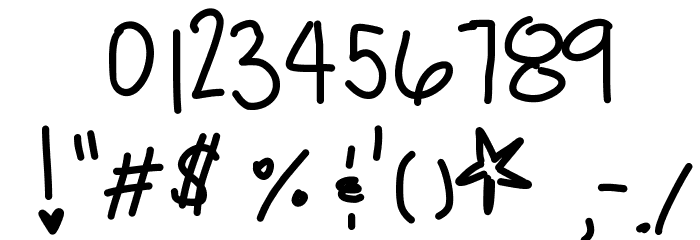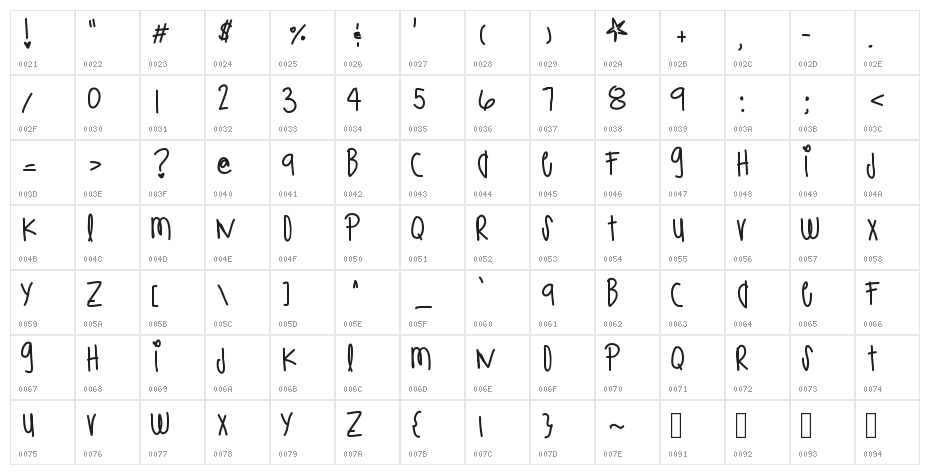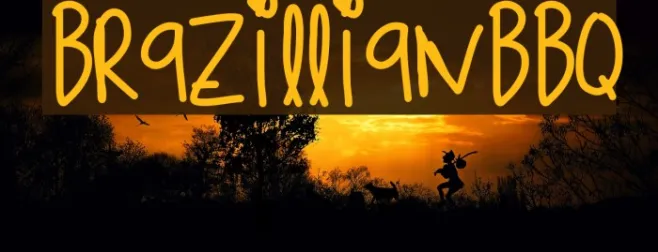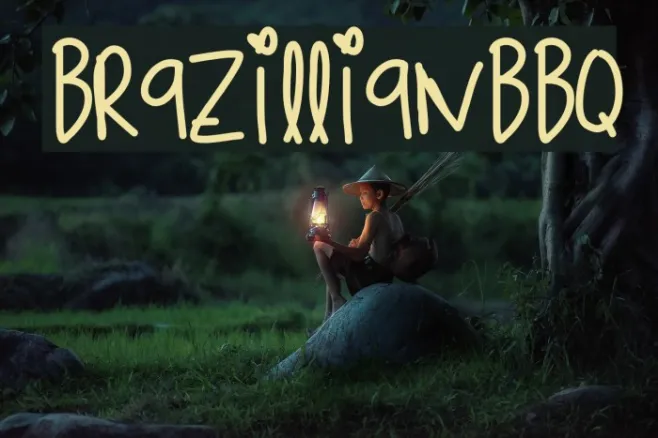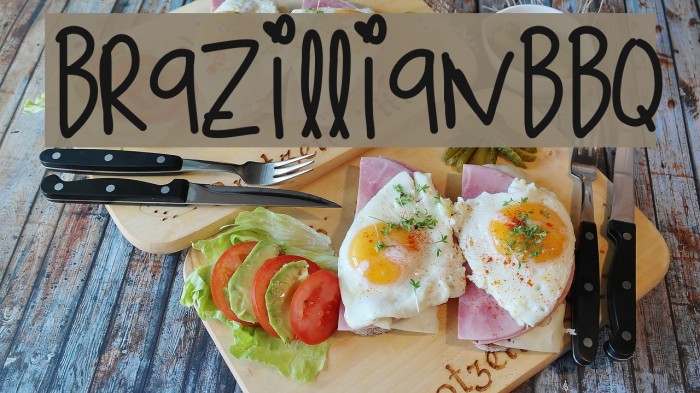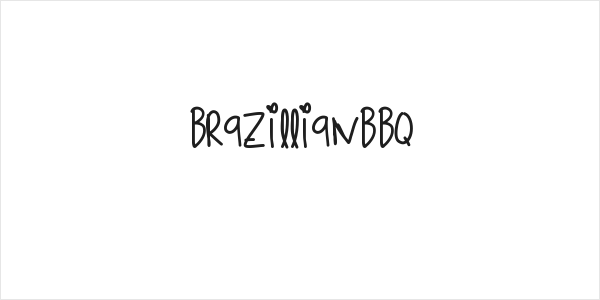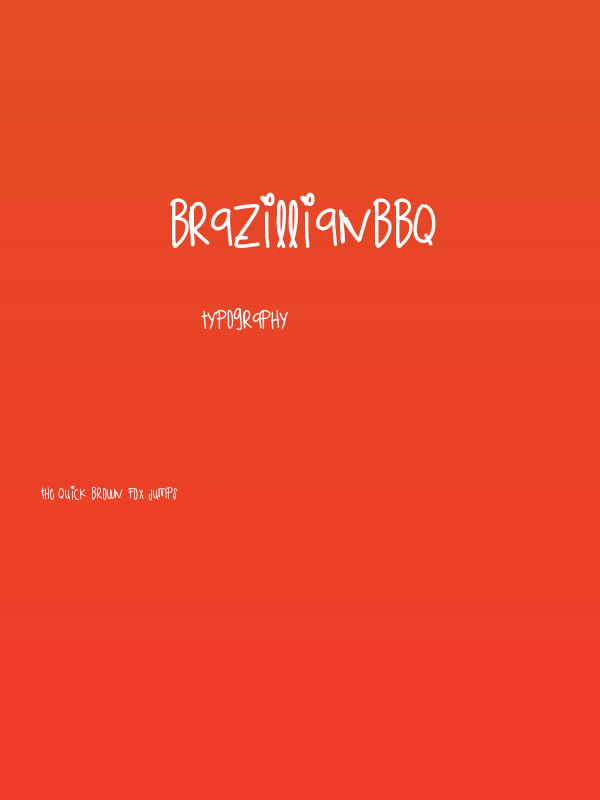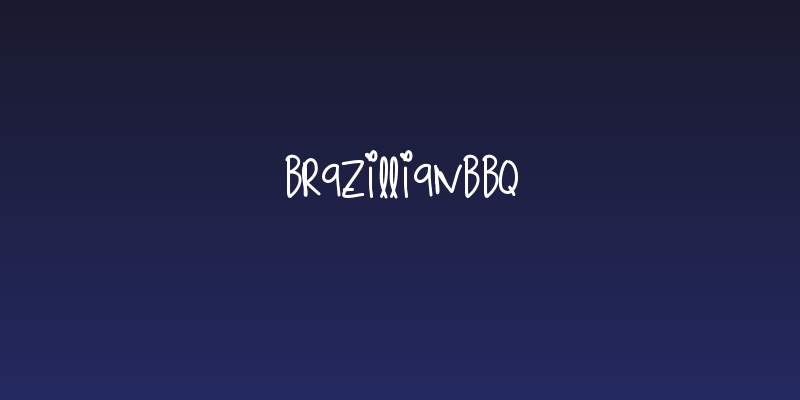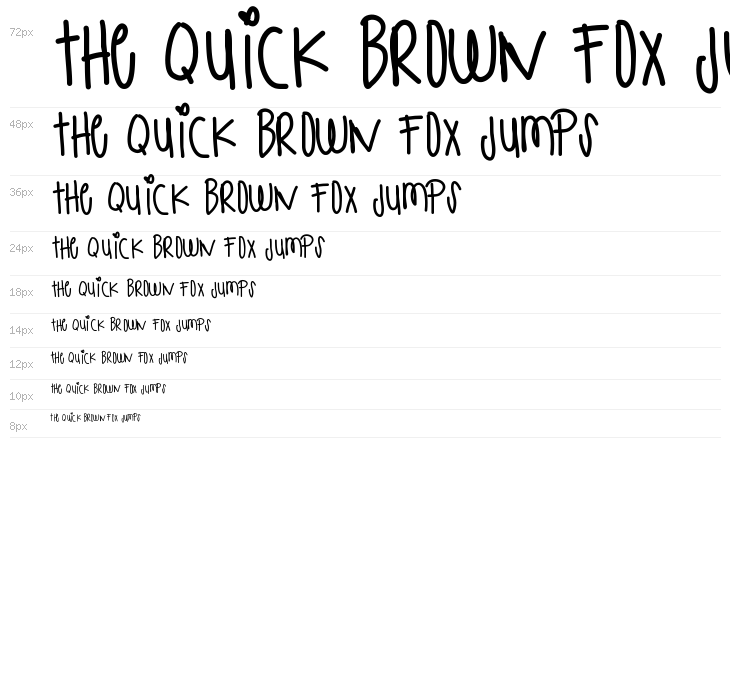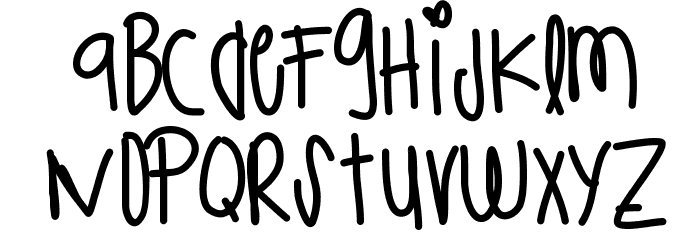
BrazillianBbq Font
BrazillianBbq Description
This playful and energetic font features a handwritten style with a casual and friendly appearance. The letters are bold and rounded, with a slight slant that adds a dynamic feel. The strokes are consistent in width, giving it a uniform look while maintaining a lively character. The font includes both uppercase and lowercase letters, numbers, and a variety of special characters. Its whimsical nature is enhanced by the occasional heart-shaped detail on certain letters, adding a touch of charm and personality.
| Proposed Projects | Ideal for children's books, playful branding, greeting cards, and social media graphics. |